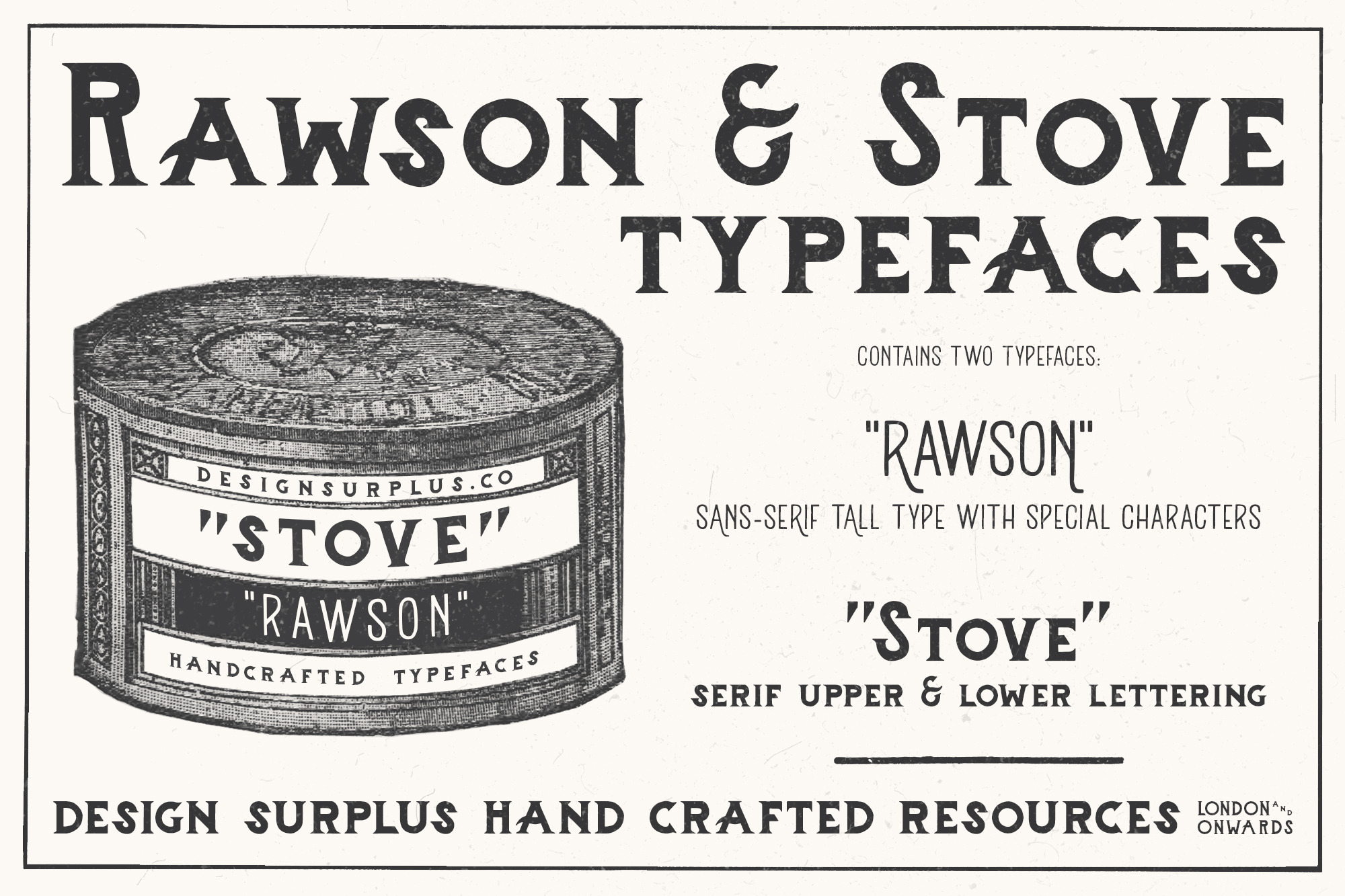
Rawson & Stove Typefaces
Rawson & Stove
A two typeface collection mirroring the vintage aesthetic of early 1900 advertisements. These two hand drawn fonts, Rawson & Stove go hand in hand to create logos, branding, ad's, signage and more!